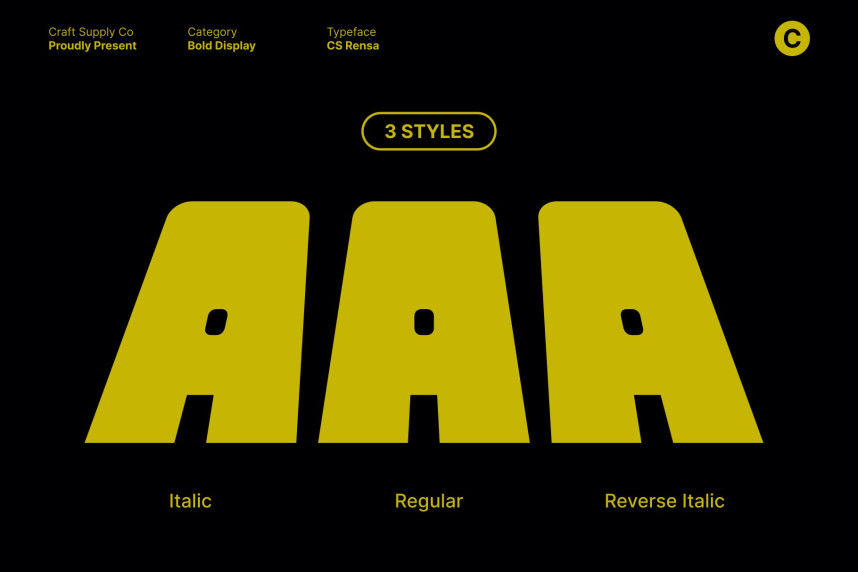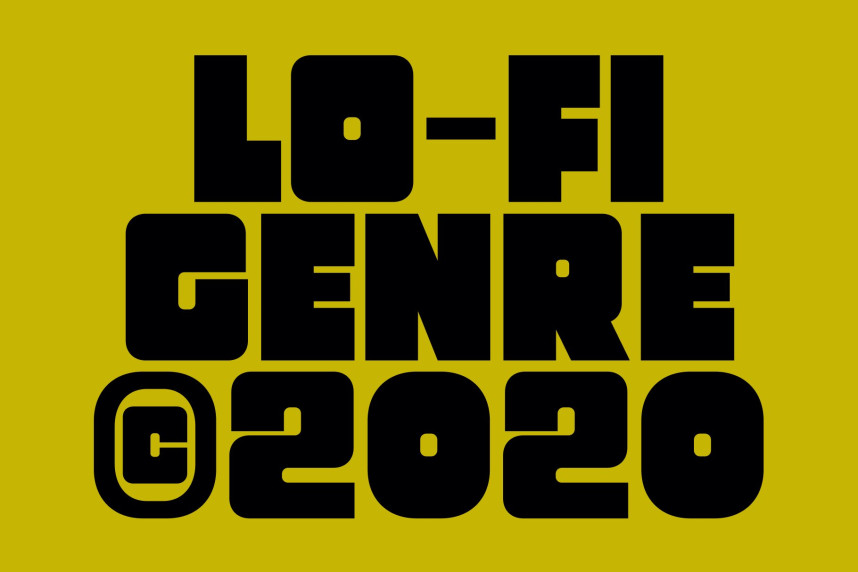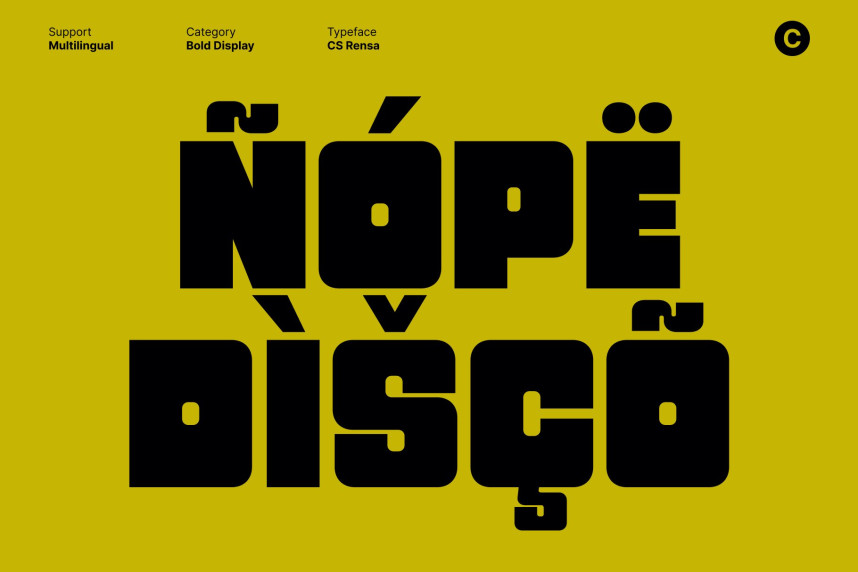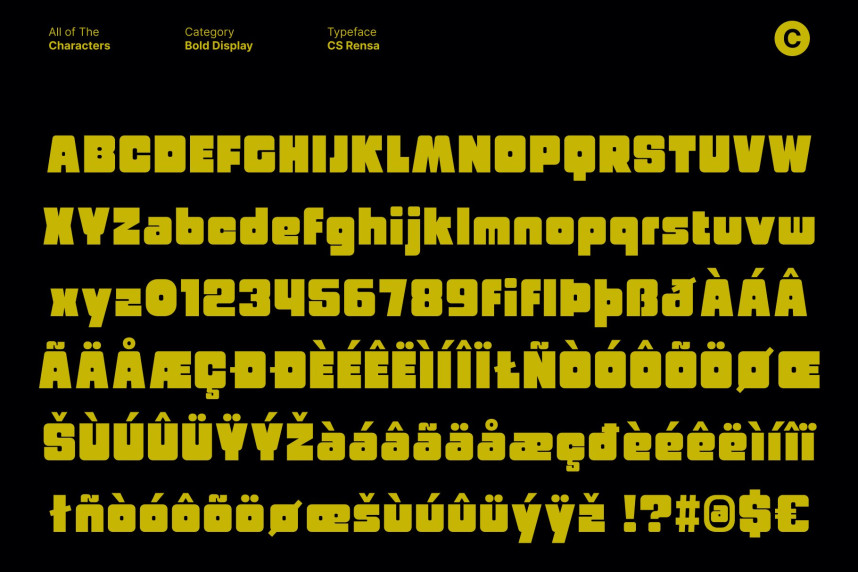
CS Rensa Font
CS Rensa Font – Bold Geometry for Maximum Impact A Strong Sans Serif Built for Expression. This is a bold geometric sans serif font designed to deliver powerful visual impact. With its solid block shapes, clean structure, and commanding proportions, this typeface immediately draws the eye. Every character is crafted to enhance clarity and presence, making it a standout choice for expressive and high-impact design work.